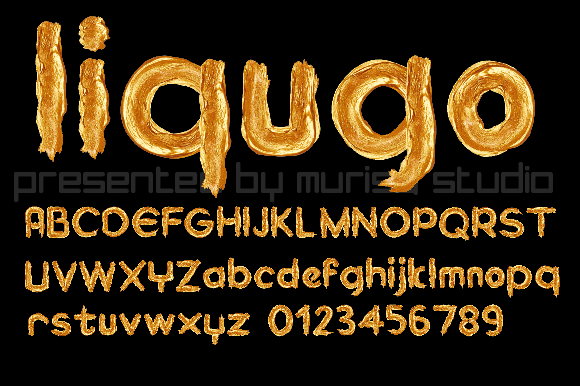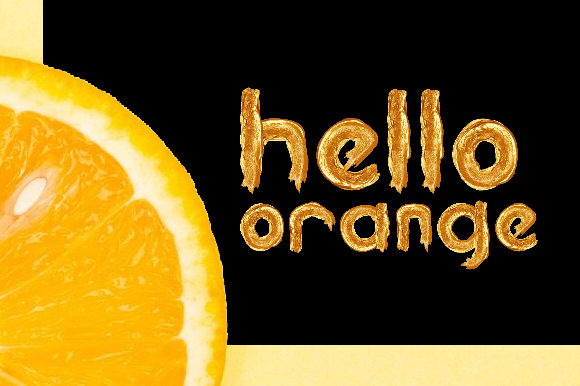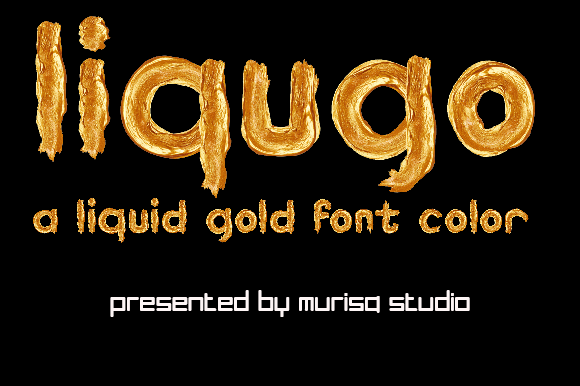
Introduction to Liqugo Font
Liqugo is a sweet and friendly color font.
Why Choose Liqugo Font?
Liqugo Font offers exceptional quality and versatility, making it a valuable addition to your design toolkit. Whether you’re creating for personal projects or commercial use, Liqugo Font delivers professional results.